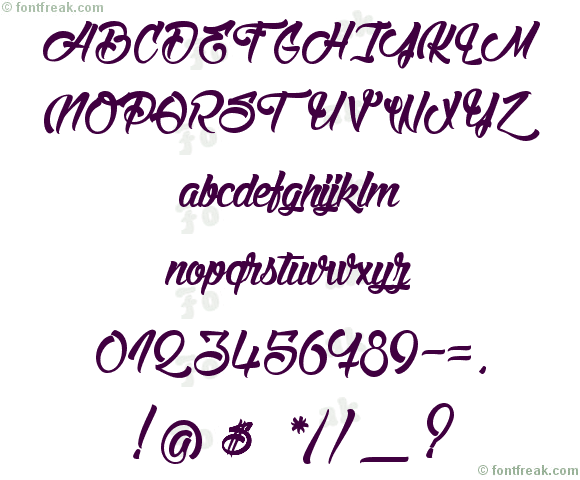
StinkontheDeath
StinkontheDeath, designed by Maelle.K, is a striking display font that captures attention with its unique visual flair. This font is characterized by its bold, expressive strokes that create a dynamic contrast between thick and thin lines. The playful curves and exaggerated features lend a lively feel to the typeface, making it an excellent choice for projects that require a touch of personality. The overall spacing is well-considered, allowing for readability while maintaining an artistic edge.
This font is particularly well-suited for a variety of creative applications. It shines in contexts such as movie posters where a dramatic and eye-catching title is essential. Additionally, StinkontheDeath can elevate wedding invitations, offering a whimsical yet elegant touch that perfectly complements romantic themes. For restaurant menus, its distinctive style adds a layer of character that can enhance the dining experience, making the menu not just a list, but a visual statement. Content creators looking to make their social media graphics pop will also find this font invaluable in drawing viewers' attention.
The target audience for the StinkontheDeath font includes graphic designers, small business owners, and content creators who seek to infuse their projects with a unique and expressive typographic voice. Those who appreciate the intersection of art and functionality will find this font particularly appealing.